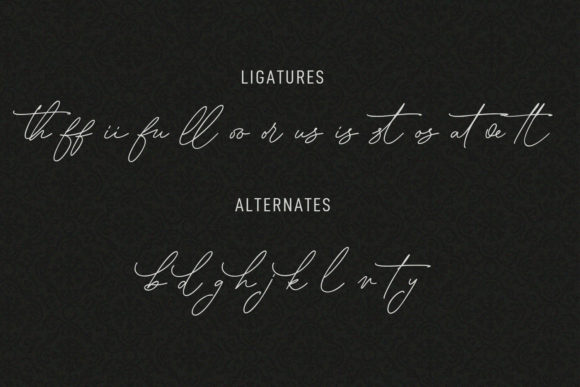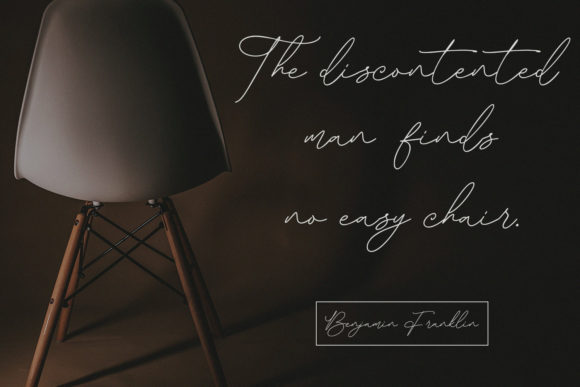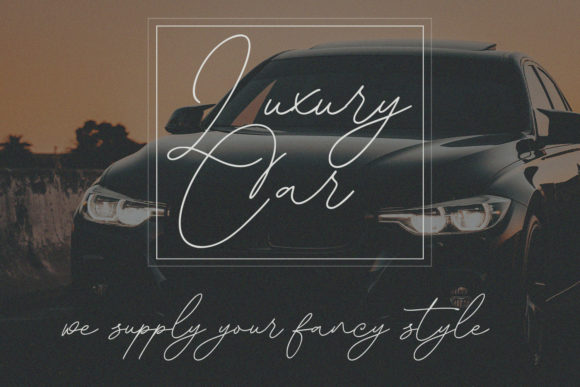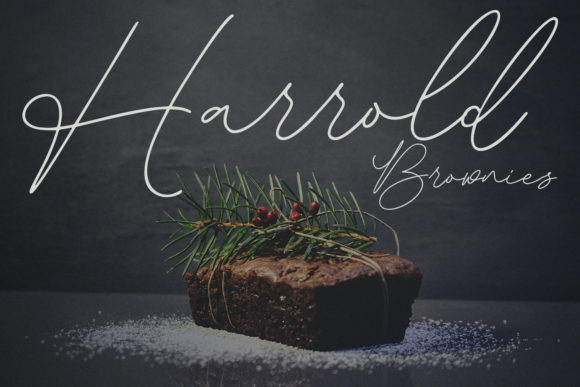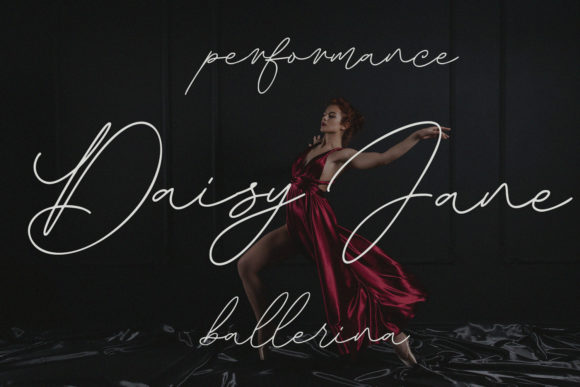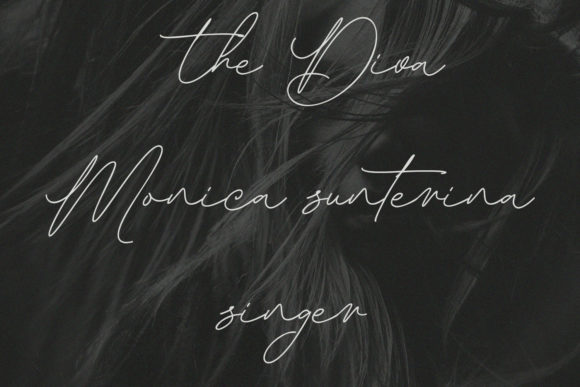
About Gojelles Font
Gojelles, with its slim and distinctive signature script design, stands out as an exceptional asset for your fonts’ library. Regardless of the topic or theme, this font has the remarkable ability to elevate any creation it graces. Its unique characteristics make it a versatile and valuable tool for various design projects.
The slim and signature script style of Gojelles adds a touch of elegance and sophistication to your text. This makes it an excellent choice for a wide range of applications, from personal projects to professional endeavors. Whether you’re working on invitations, branding, advertising, or any other design, Gojelles brings a refined and stylish flair that captures attention and leaves a lasting impression.
The versatility of Gojelles lies in its adaptability to different contexts. It seamlessly complements various themes and topics, making it a reliable choice for creatives seeking a font that can effortlessly enhance the visual appeal of their work. Its slim and signature script nature provides a sense of uniqueness, setting your designs apart with a touch of individuality.
Having Gojelles in your fonts’ library opens up a world of possibilities for creative expression. Its potential to elevate any creation makes it a go-to choice when you want to add a distinctive and stylish element to your projects. Embrace the slim and signature script beauty of Gojelles, and witness how it transforms your designs into captivating and memorable pieces of art.